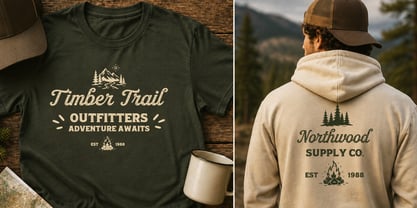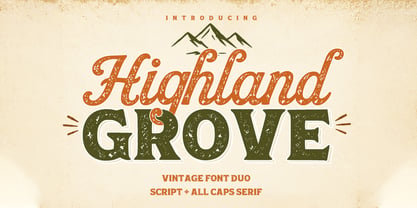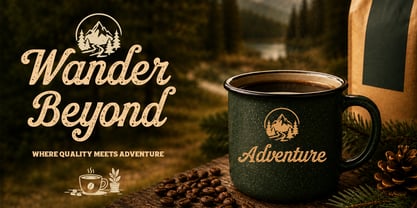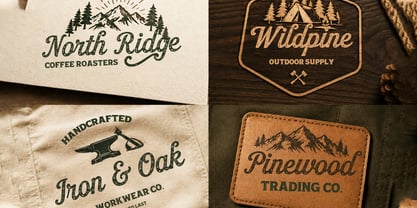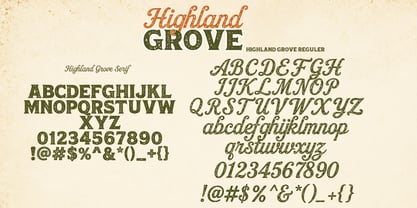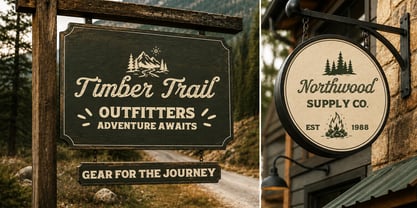
Highland Grove
The Highland Grove Font Family was designed by Muhammad Zaini and published by Cocodesign. Highland Grove contains 4 styles and family package options. More about this family
Highland Grove is a versatile vintage font duo that combines a flowing script with a bold all-caps serif. Inspired by classic signage, heritage branding, and timeless craftsmanship, this typeface delivers a perfect balance of elegance and strength.
The script style features smooth curves and natural letterforms that bring warmth and personality, while the serif companion adds structure, confidence, and vintage appeal. Together, they create eye-catching typography for a wide range of creative projects.
Whether used individually or paired together, Highland Grove offers endless design possibilities for both modern and retro-inspired aesthetics.